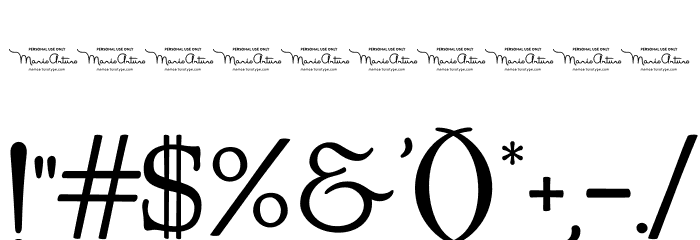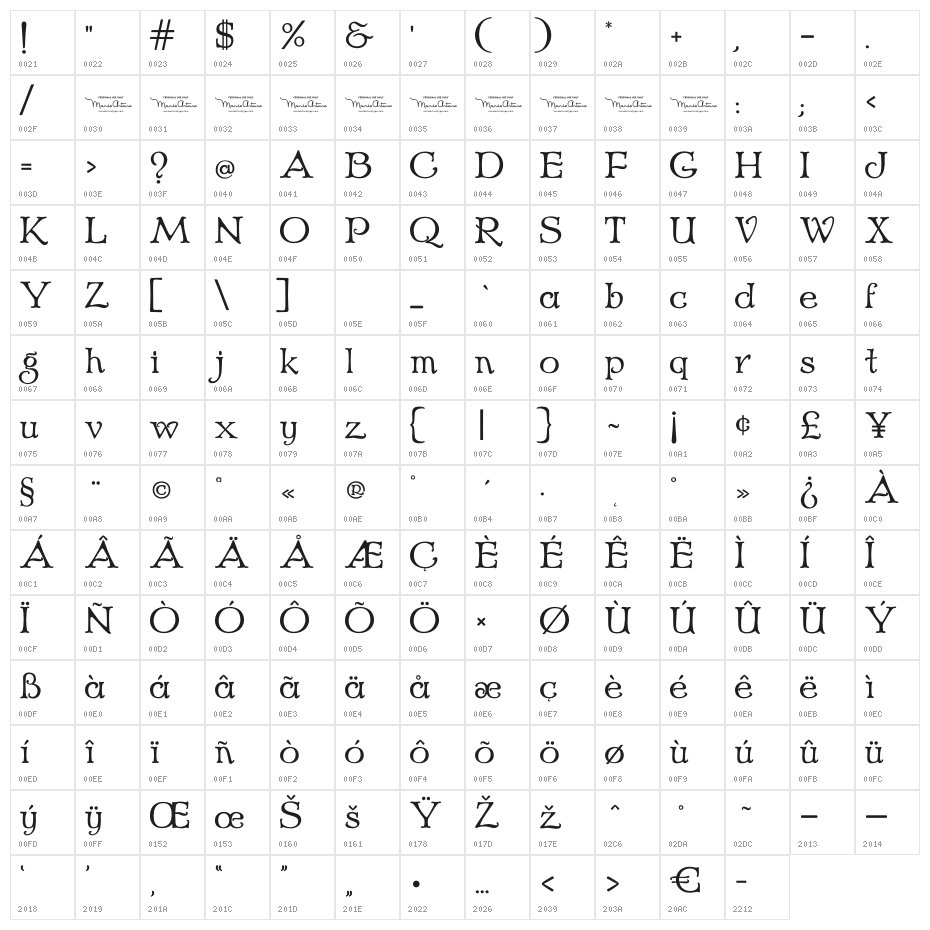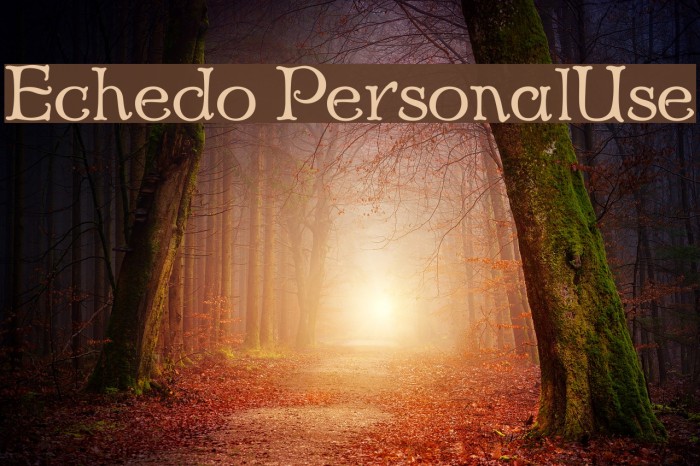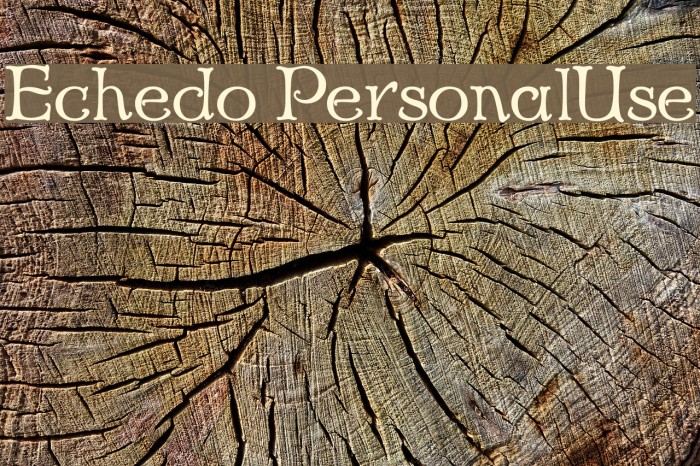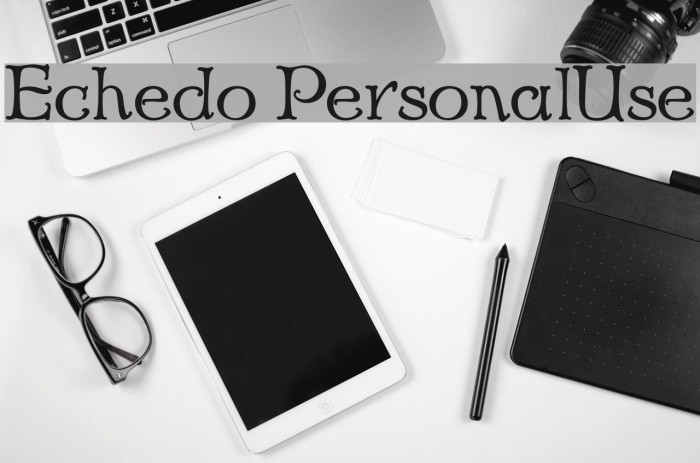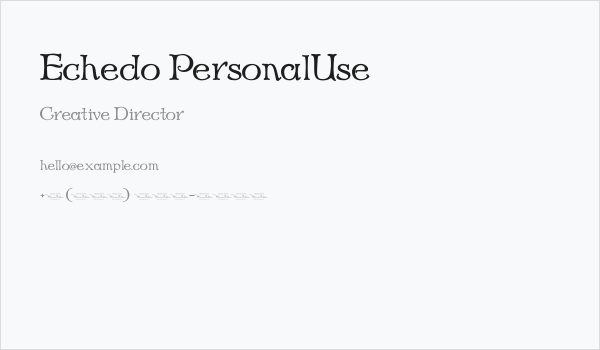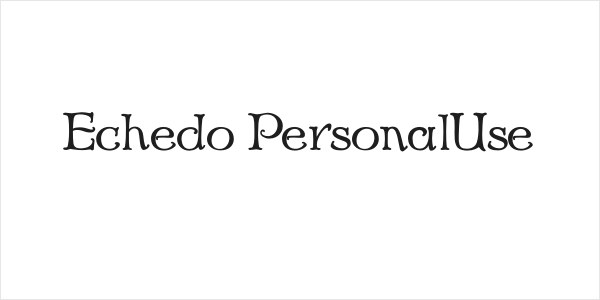
Echedo PersonalUse Font
Echedo PersonalUse Description
This font features a whimsical and playful design, characterized by its curly and slightly uneven strokes. The uppercase letters have a distinct flair with exaggerated serifs and a hand-drawn feel, while the lowercase letters maintain a consistent style with rounded edges and a charming, informal appearance. The numerals and special characters follow the same playful aesthetic, making the font suitable for creative and artistic projects. Its unique style adds a touch of personality and warmth, making it ideal for designs that aim to stand out with a friendly and approachable vibe.